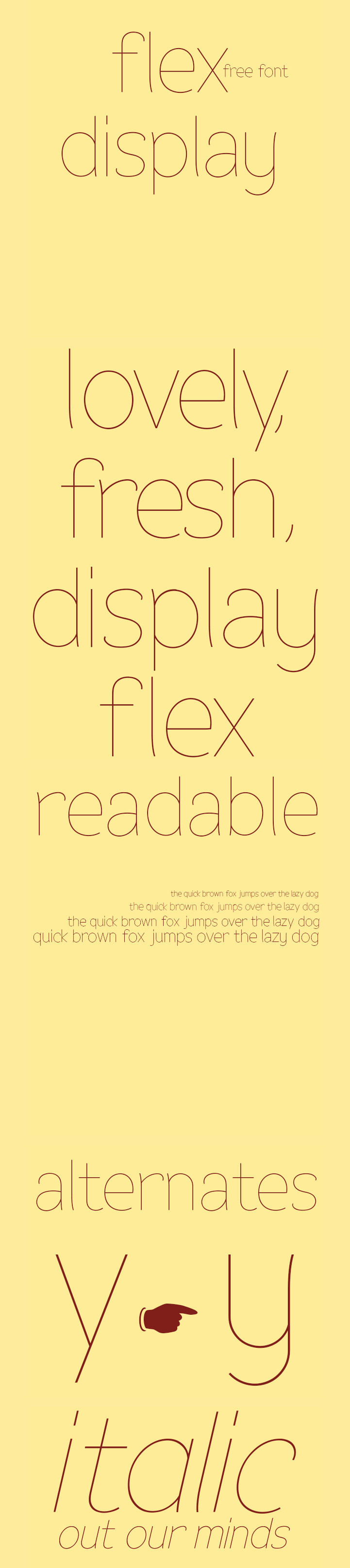
Flex Display Fonts
Flex Display – free fonts
Flex Display; developed by Álvaro Thomáz, it’s a free geometric thin display font that can be used in branding, candy recipes, webfonts and other.